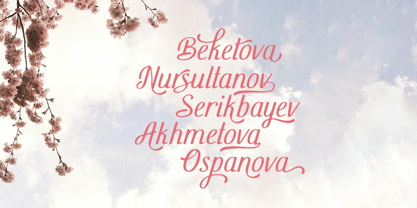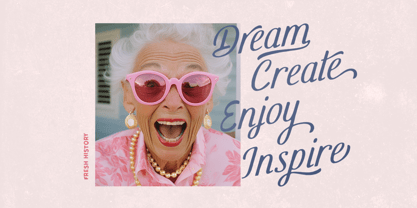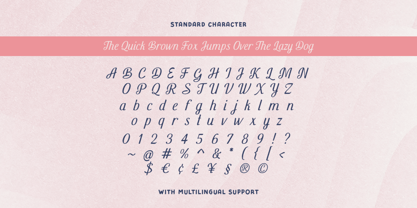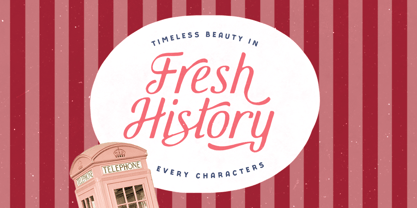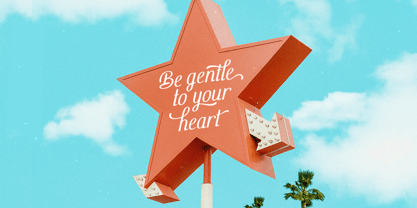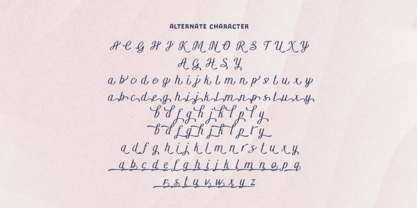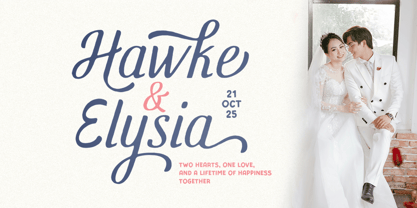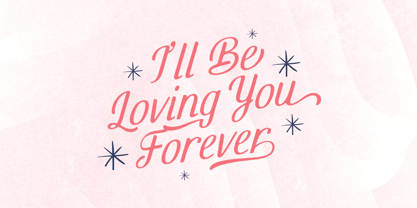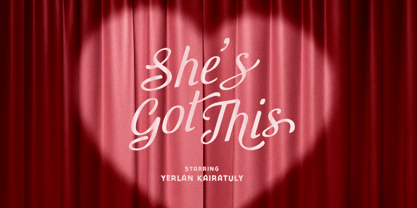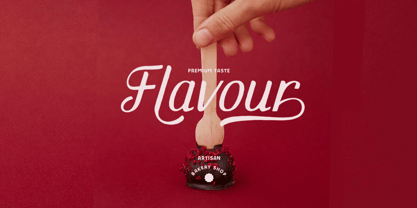
Fresh History
by Bale Type
The Fresh History Font Family was designed by Liwa Shidqy and published by Bale Type. Fresh History contains 1 styles. More about this family
Fresh History is a charming hand-lettered script filled with a beautiful collection of stylish alternates. Each alternate helps you create designs that feel more expressive, unique, and truly stand out. Perfect for branding, logotypes, retro posters, wedding invitations, and more, this script brings a warm and nostalgic touch to any project. It’s also a delightful choice for holiday-themed designs, adding a cute and festive feel to your seasonal branding. Complete with multilingual support, Fresh History is both versatile and inspiring for all your creative needs.
Designers: Liwa Shidqy
Foundry: Bale Type